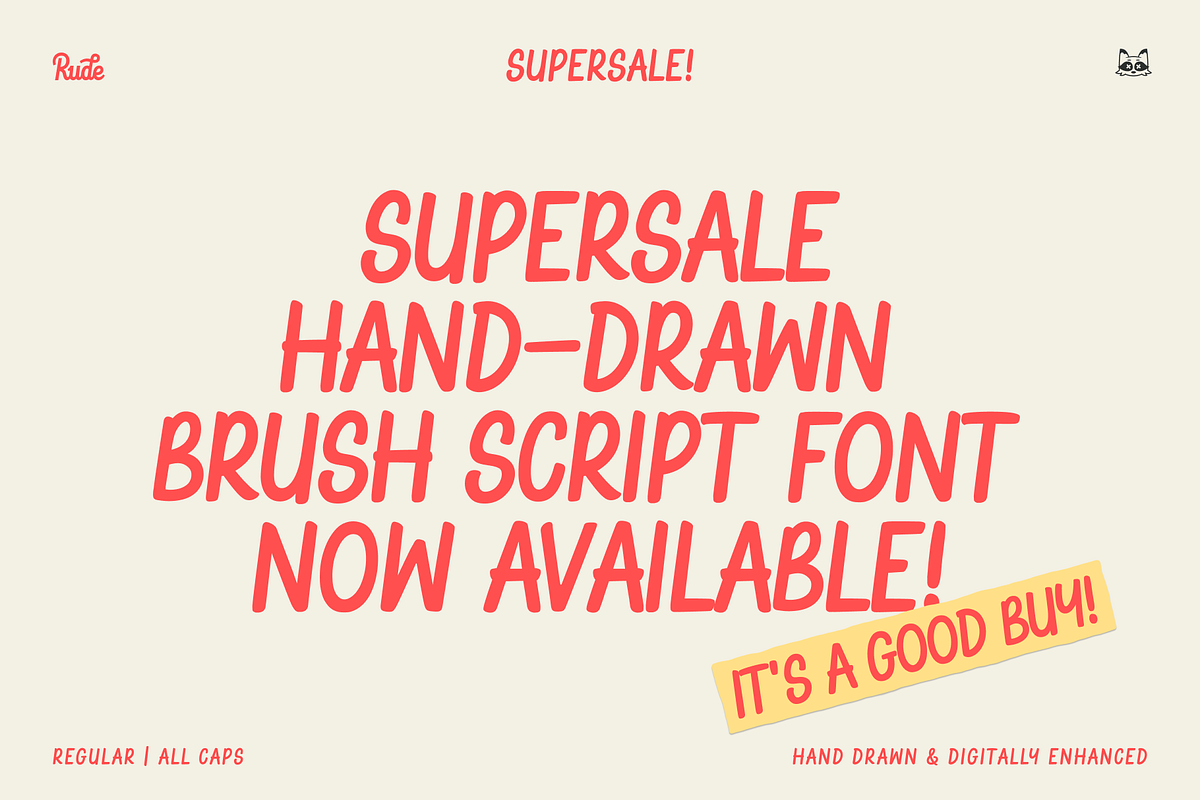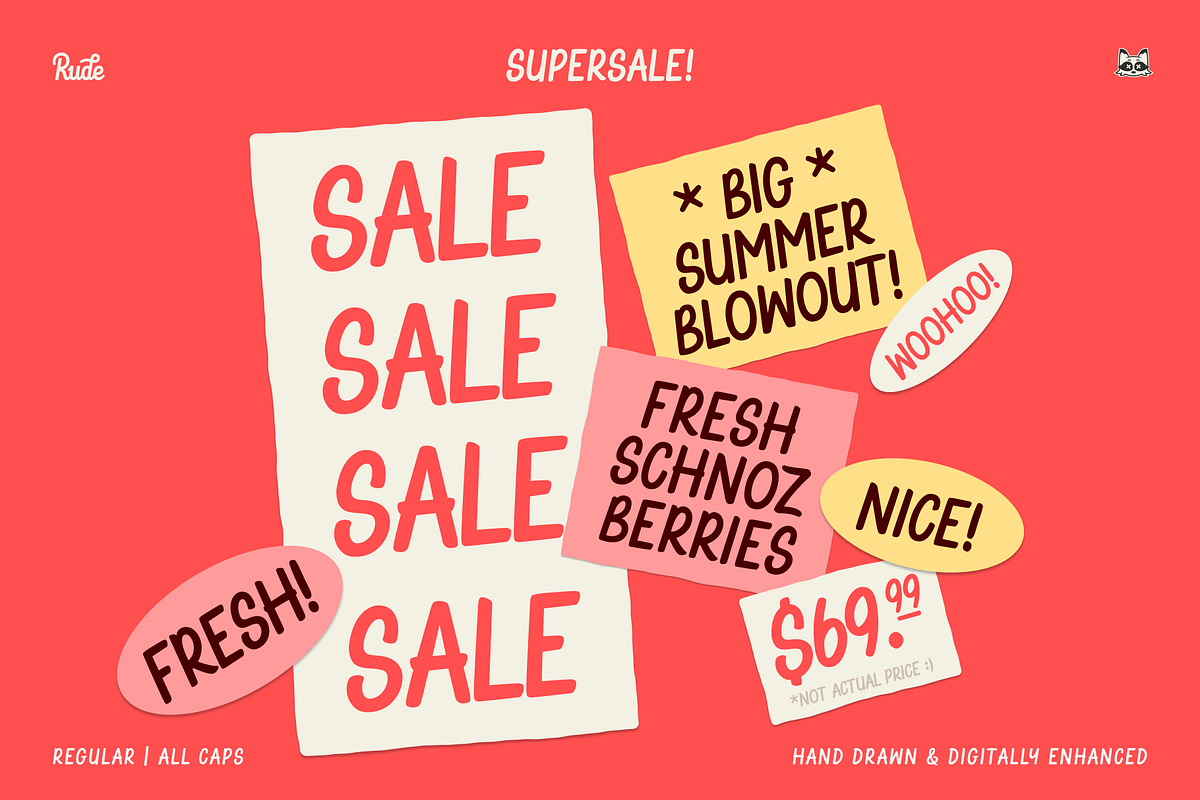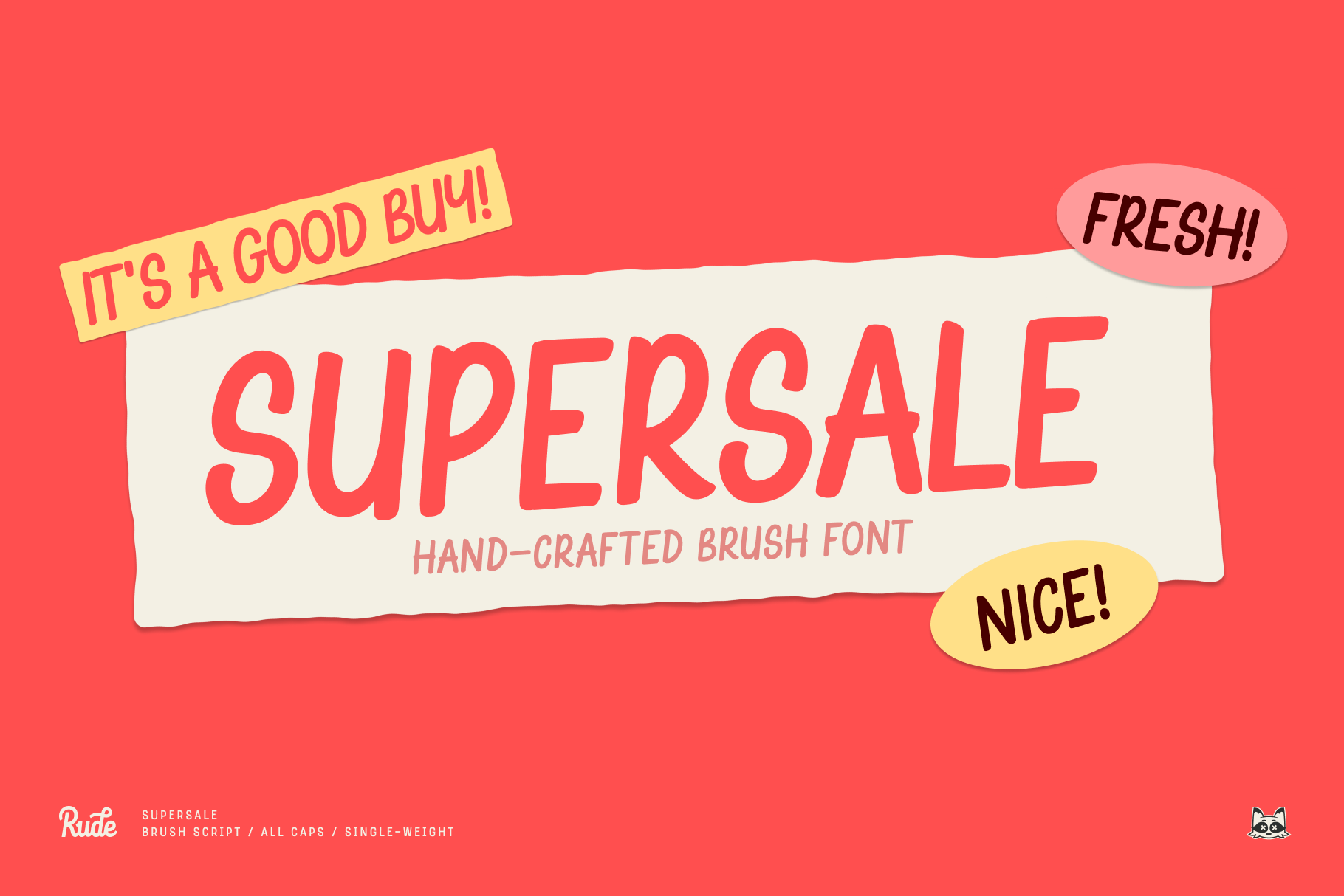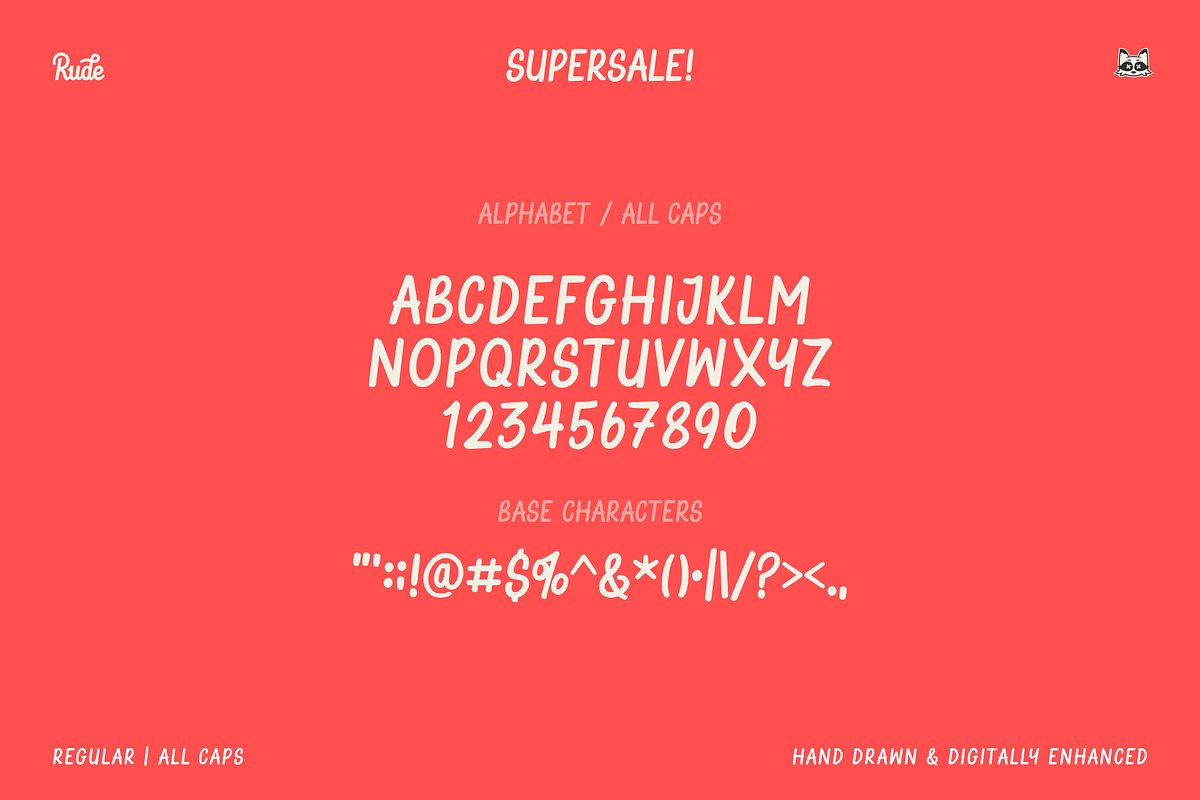
Supersale Hand-drawn Brush Font
A hand-drawn & digitally enhanced brush style display font inspired by classic supermarket sign painting.
- Single Weight
- All-Caps/Uppercase
- Slight Slant